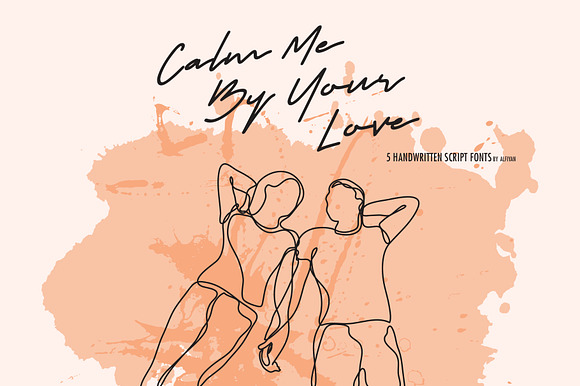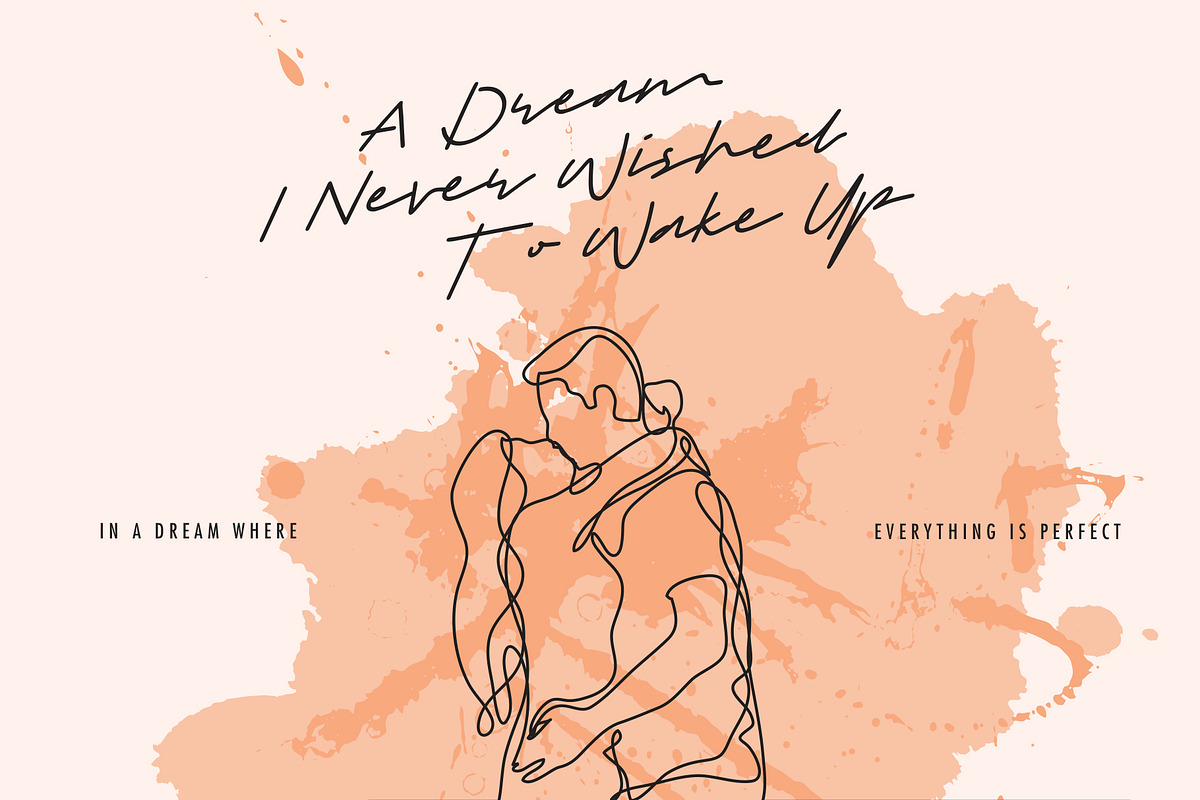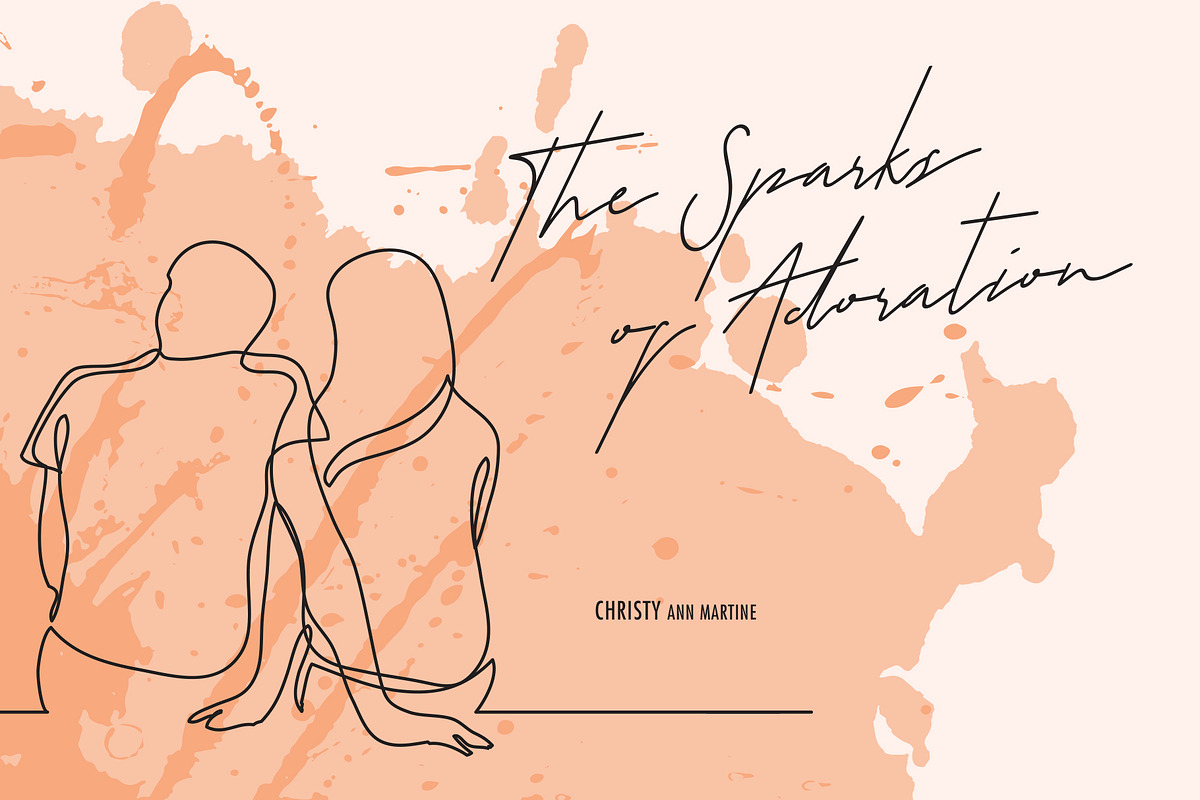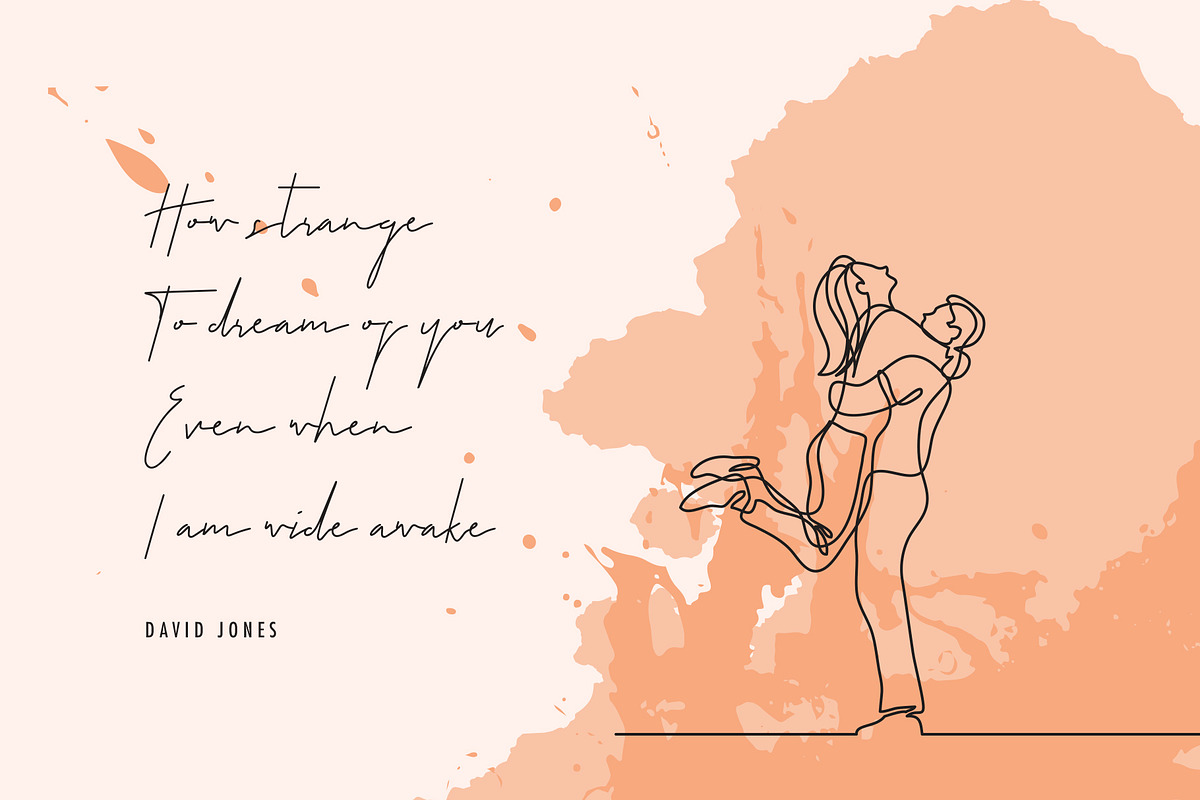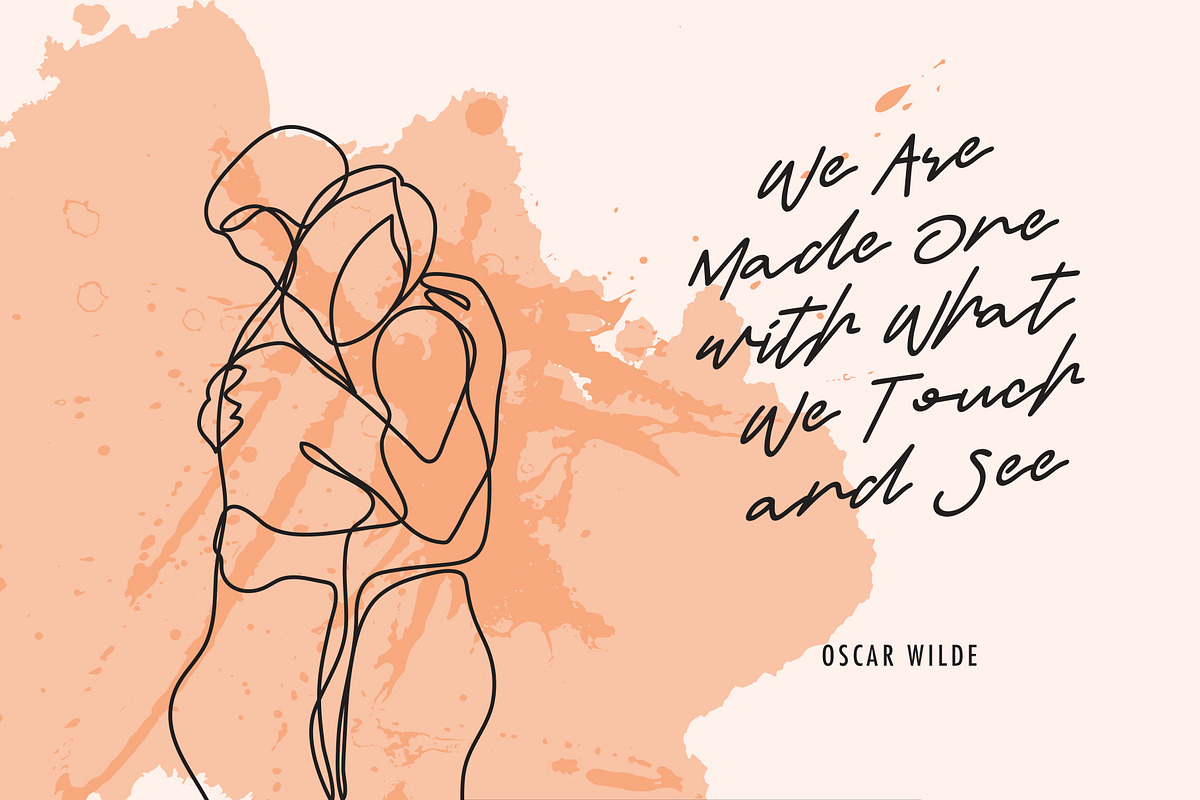
Sam and Sally - 5 Handwritten Fonts
Set of fonts that written in natural flow with effortlessly feeling. Come with various stroke weight, and every font has its own style and writing flow. The fonts come with upper & lowercase characters. The Fonts works perfectly in all sort of design projects like fashion, wedding, blogs, branding, and more, personally I really like to use them for Title and Logotype.
- The fonts come with upper & lowercase characters.